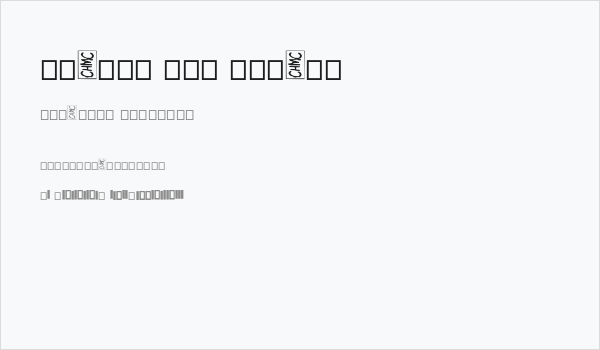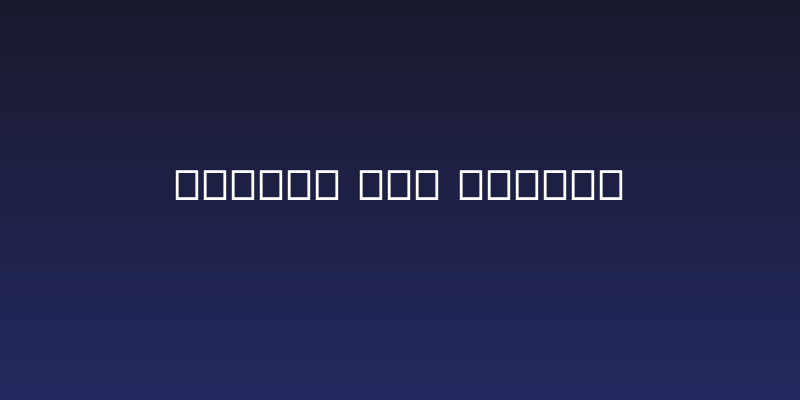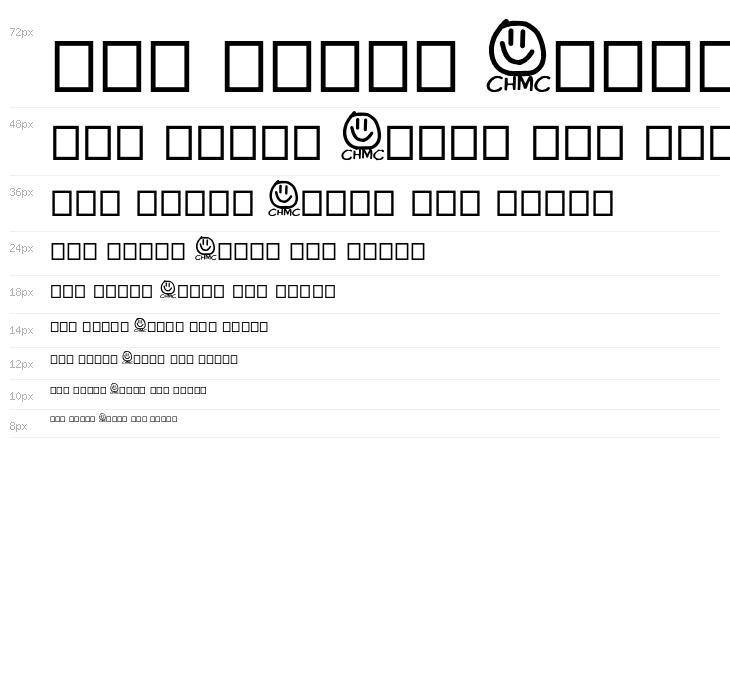
Heaven the Binary Font
Heaven the Binary Description
A geometric, monospaced display font where each character is represented by a binary-inspired rectangular glyph, evoking a digital or encoded aesthetic. The characters are uniform in width and height, with bold, high-contrast outlines and a modular, grid-based structure.
| Overall Style | Modern, Futuristic, Decorative |
| Use Case | Logos, Headlines, Posters, Themed events |
| Proposed Projects | Tech branding, coding-themed posters, futuristic UI, digital art, puzzles, escape rooms. |